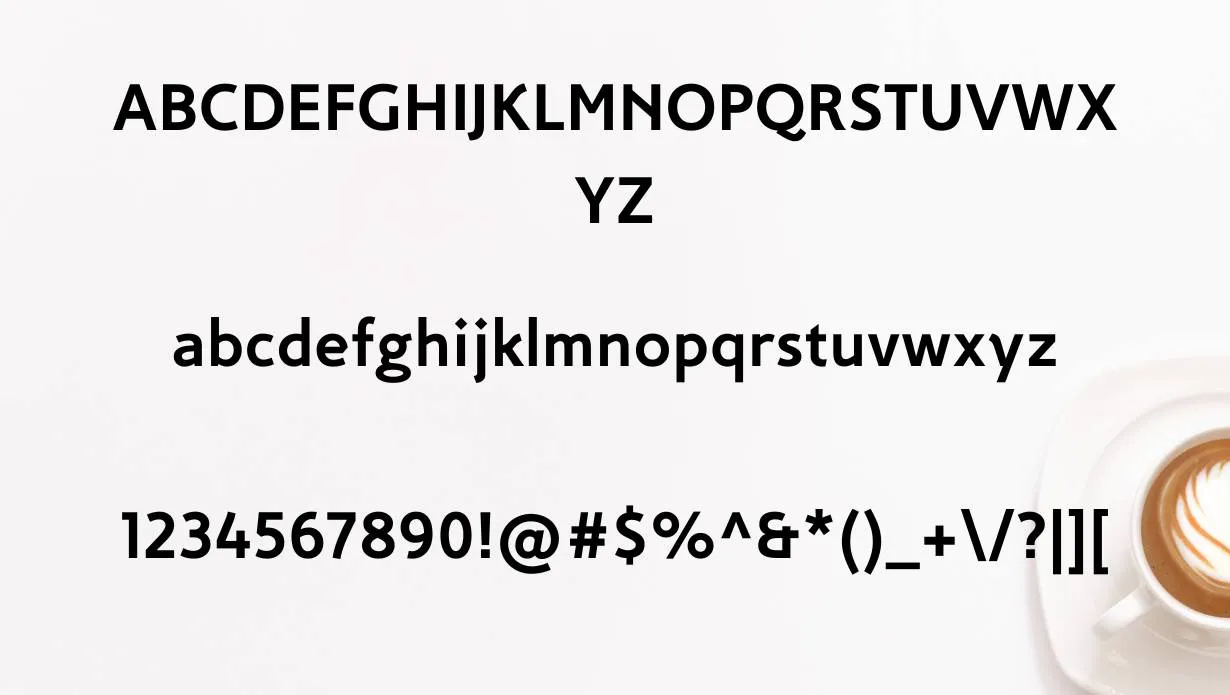
Fox Sans Trf Font is a versatile typeface known for its modern and clean design. It offers a range of weights and styles, making it suitable for a wide variety of design applications, from corporate branding to editorial design.
| Name | Fox Sans Trf Font |
| Designer | Ramiz Guseynov |
| Style | Sans serif |
The font’s clarity and simplicity provide a sleek and professional appearance to projects. The distinctive texture of this typeface appeals to creators, making it highly sought after.